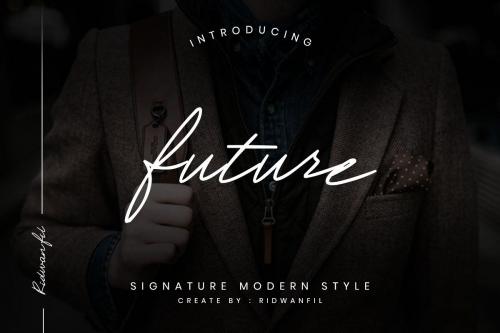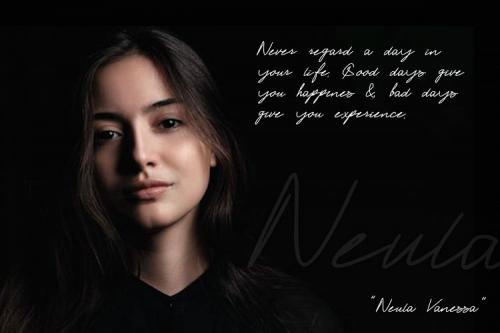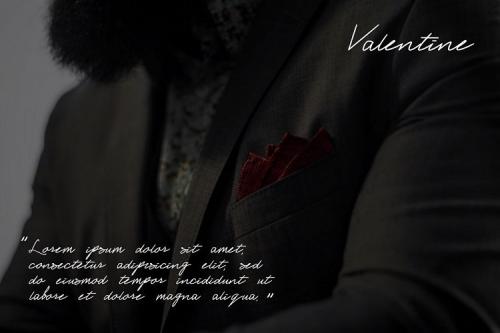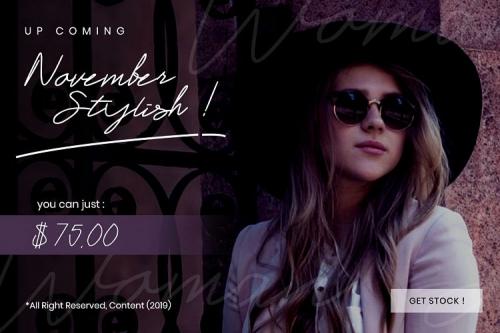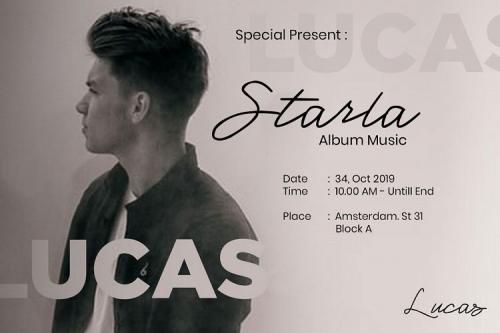
Future Font is a feminine type Handwritten with a monoline script texture that you can use to perfect your design, designed by Ridwanfil.
Future font support Lowercase, numeric and Special Characters.